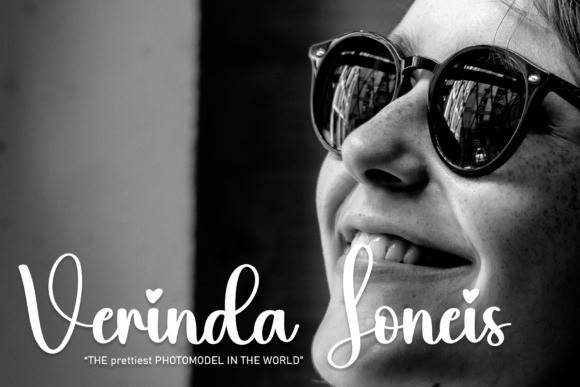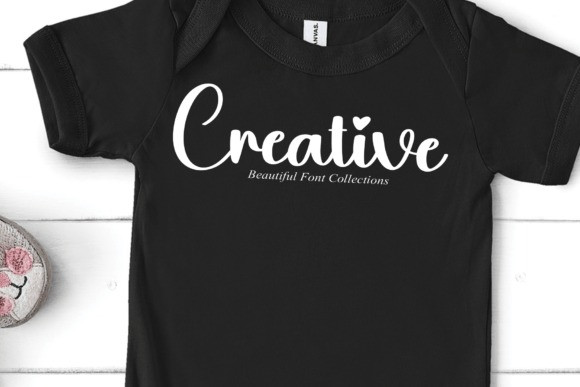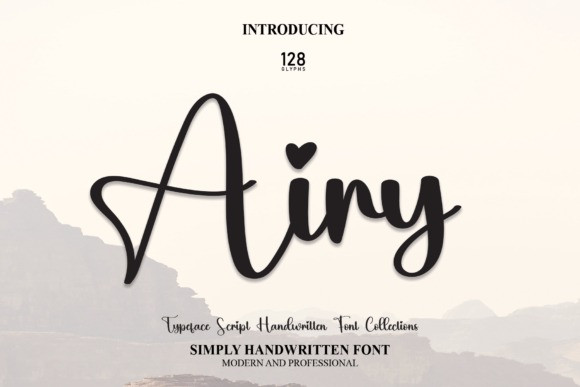
Airy Script Font
Airy Script Font, is a lovely and sweet handwritten script font. This gentle font will look gorgeous on a variety of design ideas. It will add a joyful and romantic touch to each of your projects!